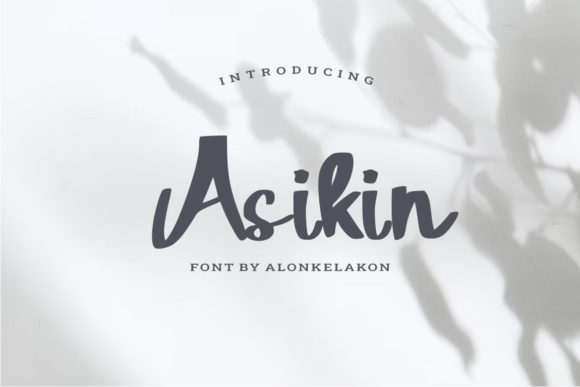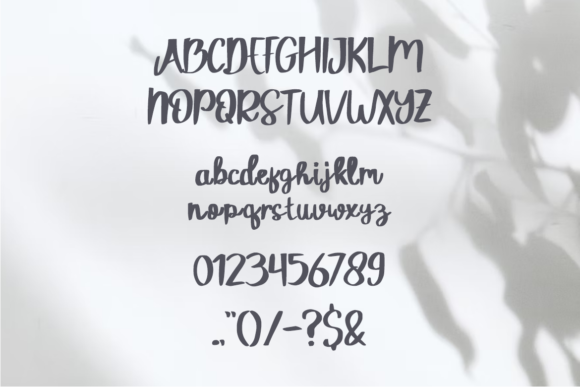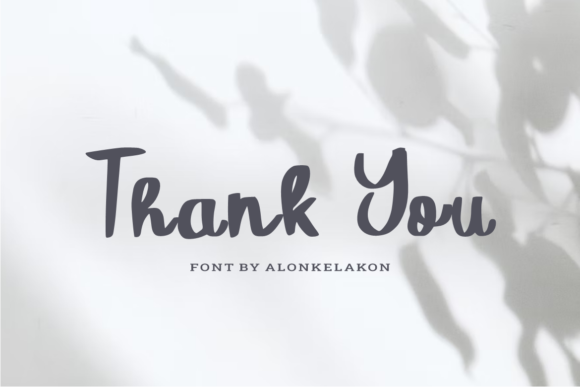
Asikin Font
About Asikin Font
“Asikin” sounds like a charming and cursive handwritten font, designed to bring a sweet and joyful touch to a range of design ideas. Let’s explore its features and the potential impact it can have on creative projects:
**Sweet and Cursive Design:**
Describing Asikin as sweet and cursive suggests a soft and flowing aesthetic. Cursive fonts often carry a sense of elegance, while the descriptor “sweet” implies a gentle and delightful quality, making it appealing for various applications.
**Versatility Across Designs:**
The statement that Asikin will look gorgeous on a variety of design ideas indicates its versatility. Whether applied to different projects or design concepts, this font appears to adapt well to diverse visual contexts.
**Joyful and Romantic Touch:**
The promise of adding a joyful and romantic touch implies that Asikin can evoke positive emotions in your projects. Fonts with this quality are often chosen to convey warmth, happiness, or a romantic atmosphere, making them suitable for a range of creative endeavors.
Incorporating Asikin into your designs could bring a touch of joy and elegance. Whether you’re working on invitations, cards, or any other visual content, this font seems tailored to add a delightful and romantic dimension to your projects.
Consider experimenting with Asikin in different contexts to fully explore its potential. Its sweet and cursive design, combined with the promise of a joyful and romantic touch, makes it a valuable asset for designers looking to infuse their creations with a charming and expressive handwritten style.